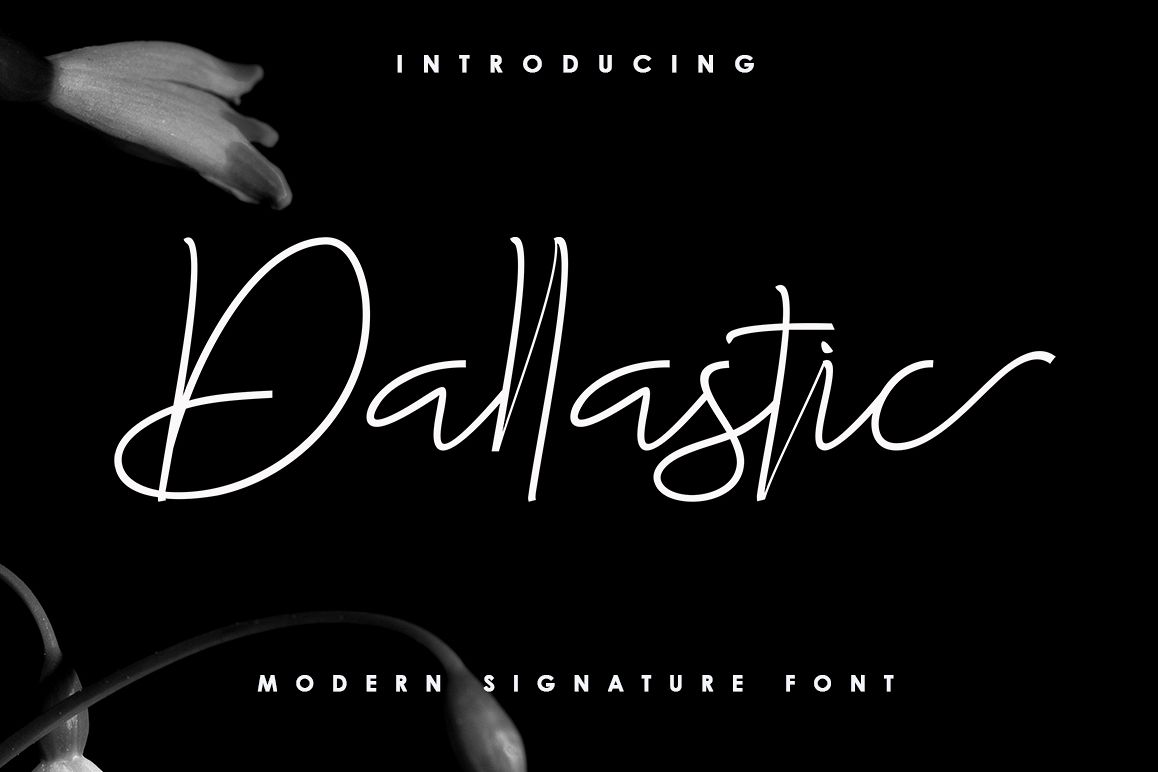
Dallastic Script
DallasticscriptSlant
Dallasticscript
Dallastic Script is highly legible Script typeface, get touch of a bold, classic and fun Vintage Script font, With glyphs and opentype features with stylistic alternates. Can be used for various purposes. such as posters, t-shirt, signage, logos, news, badges etc. To enable the OpenType Stylistic alternates, you need a program that supports OpenType features such as Adobe Illustrator CS, Adobe Indesign & CorelDraw X6-X7, Microsoft Word 2010 or later versions.